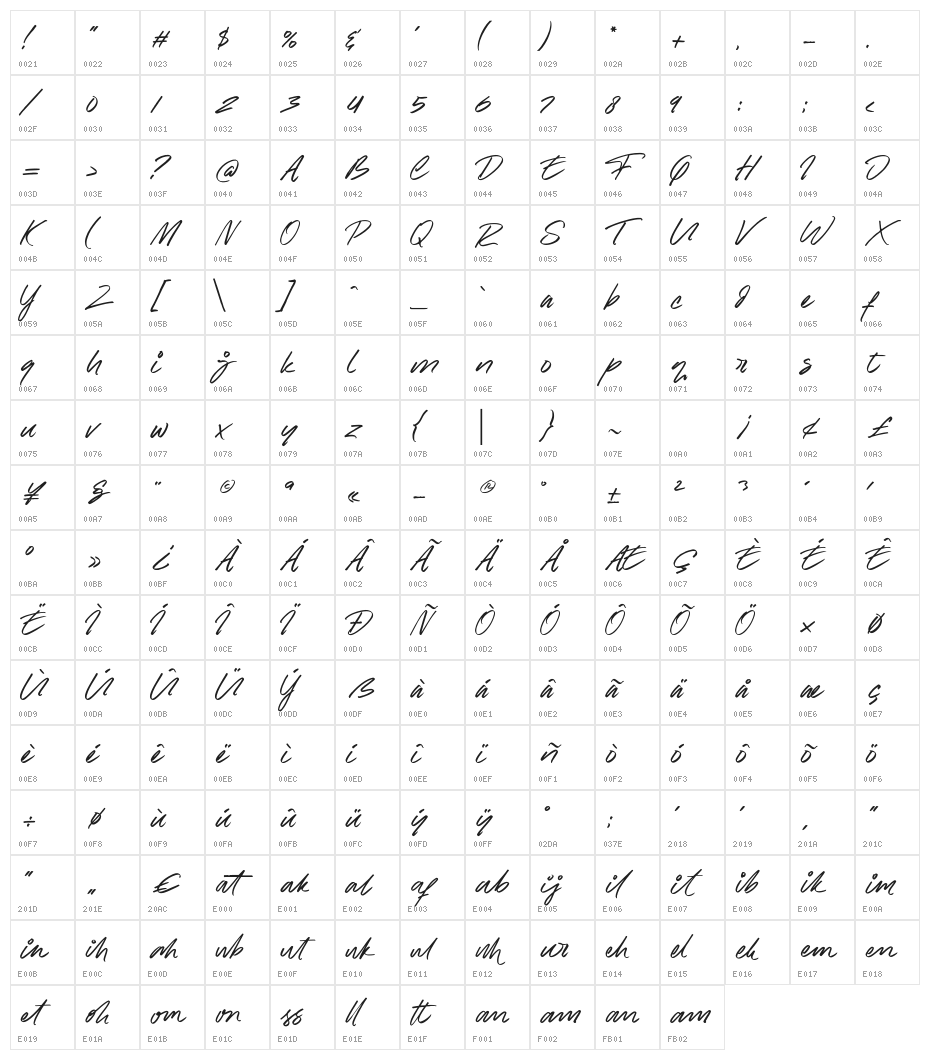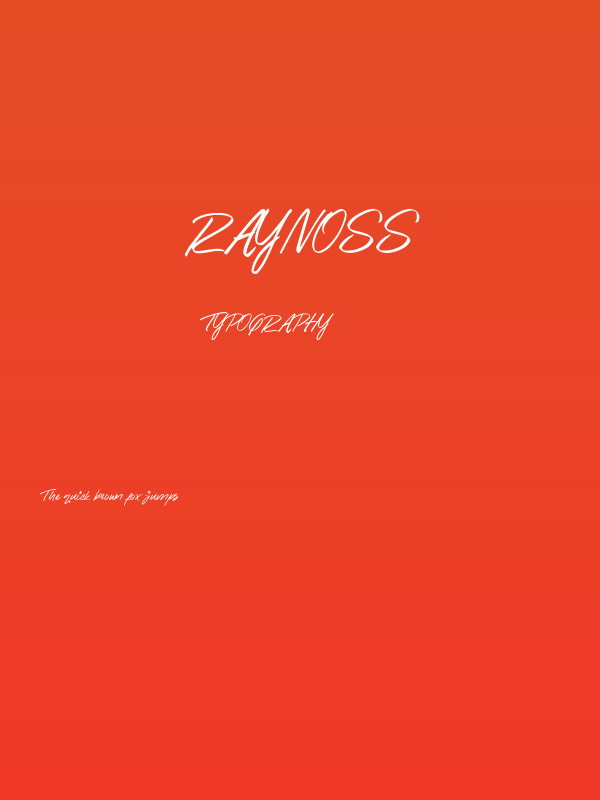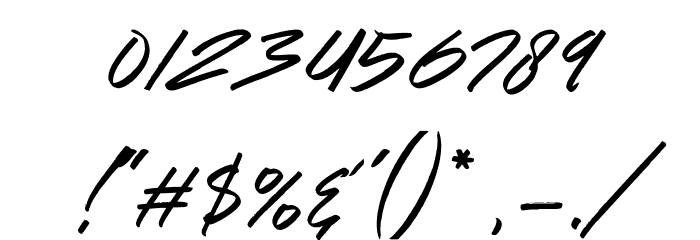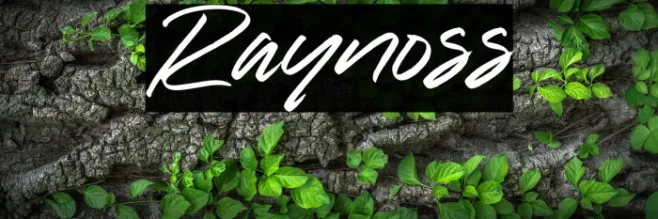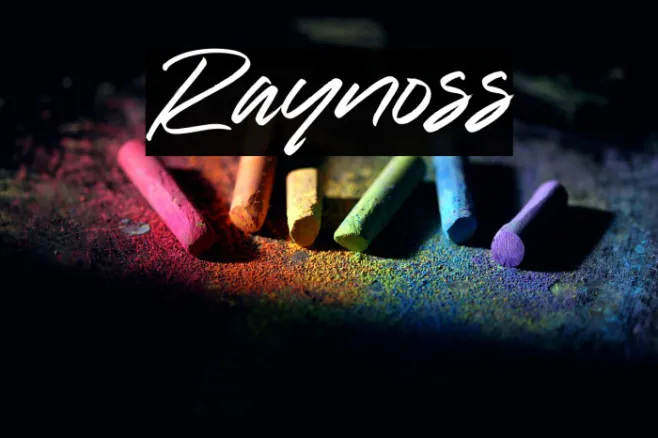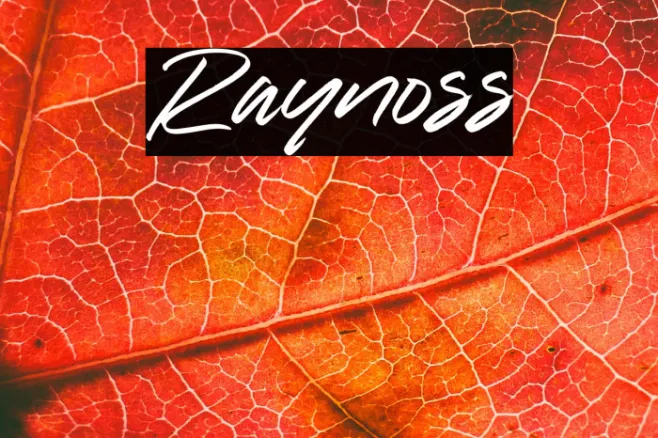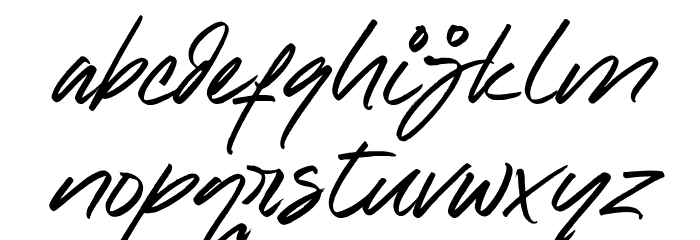
Raynoss Font
Raynoss Description
This font exhibits a dynamic and fluid script style, characterized by its bold and expressive strokes. The letters are connected in a cursive manner, giving it a handwritten appearance. The uppercase letters are slightly more elaborate, with sweeping curves and a sense of motion, while the lowercase letters maintain a consistent flow. The numerals and special characters follow the same energetic style, ensuring a cohesive look across all glyphs. This font's design is both elegant and informal, making it versatile for various creative applications.
| Use Case | Logos, Invitations, Personal Signatures |
| Proposed Projects | Ideal for wedding invitations, greeting cards, branding projects, and personal signatures. |